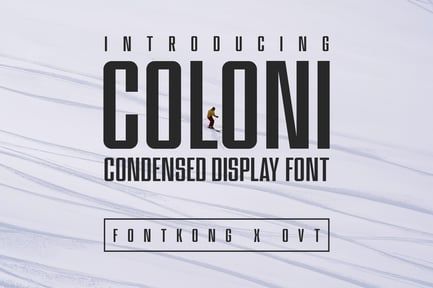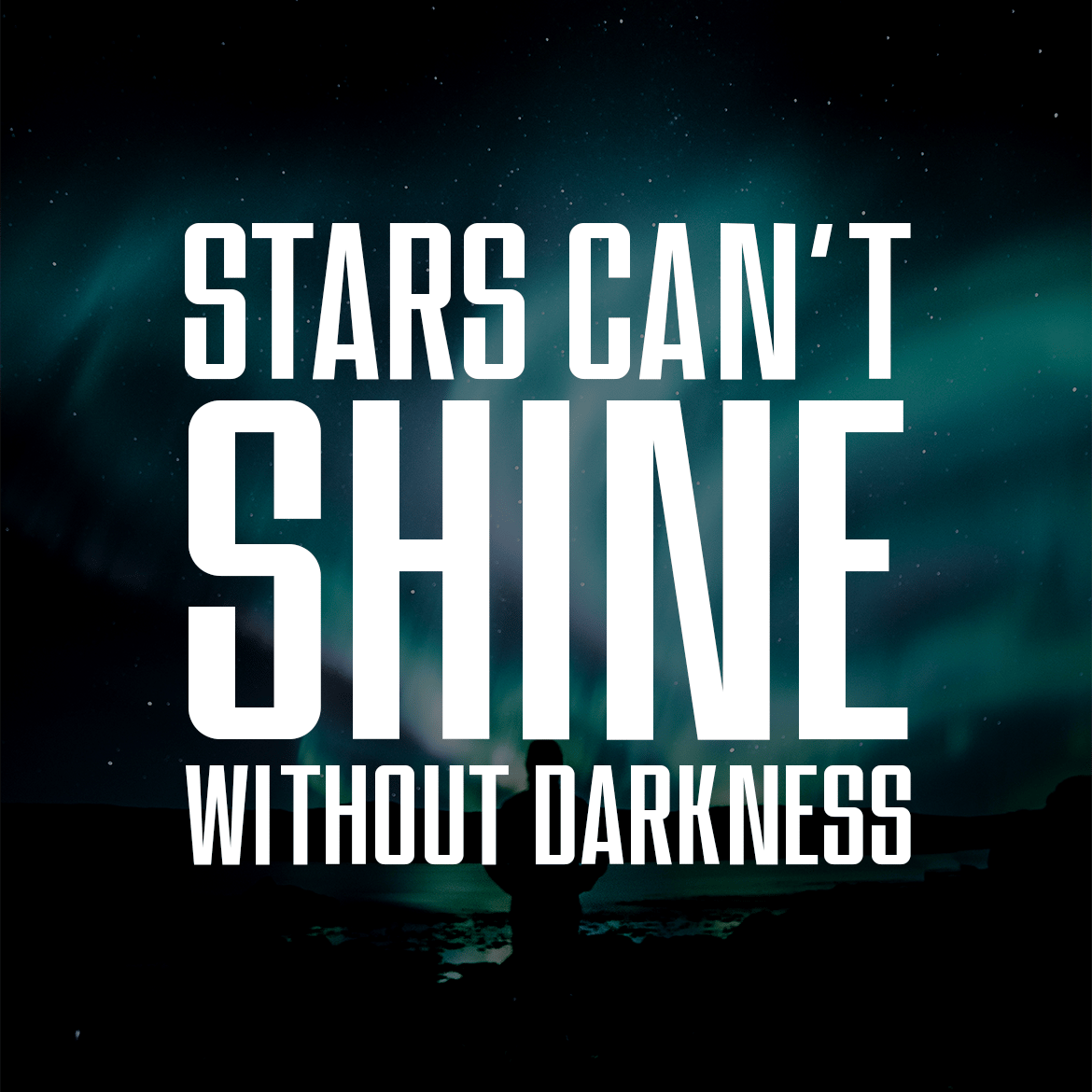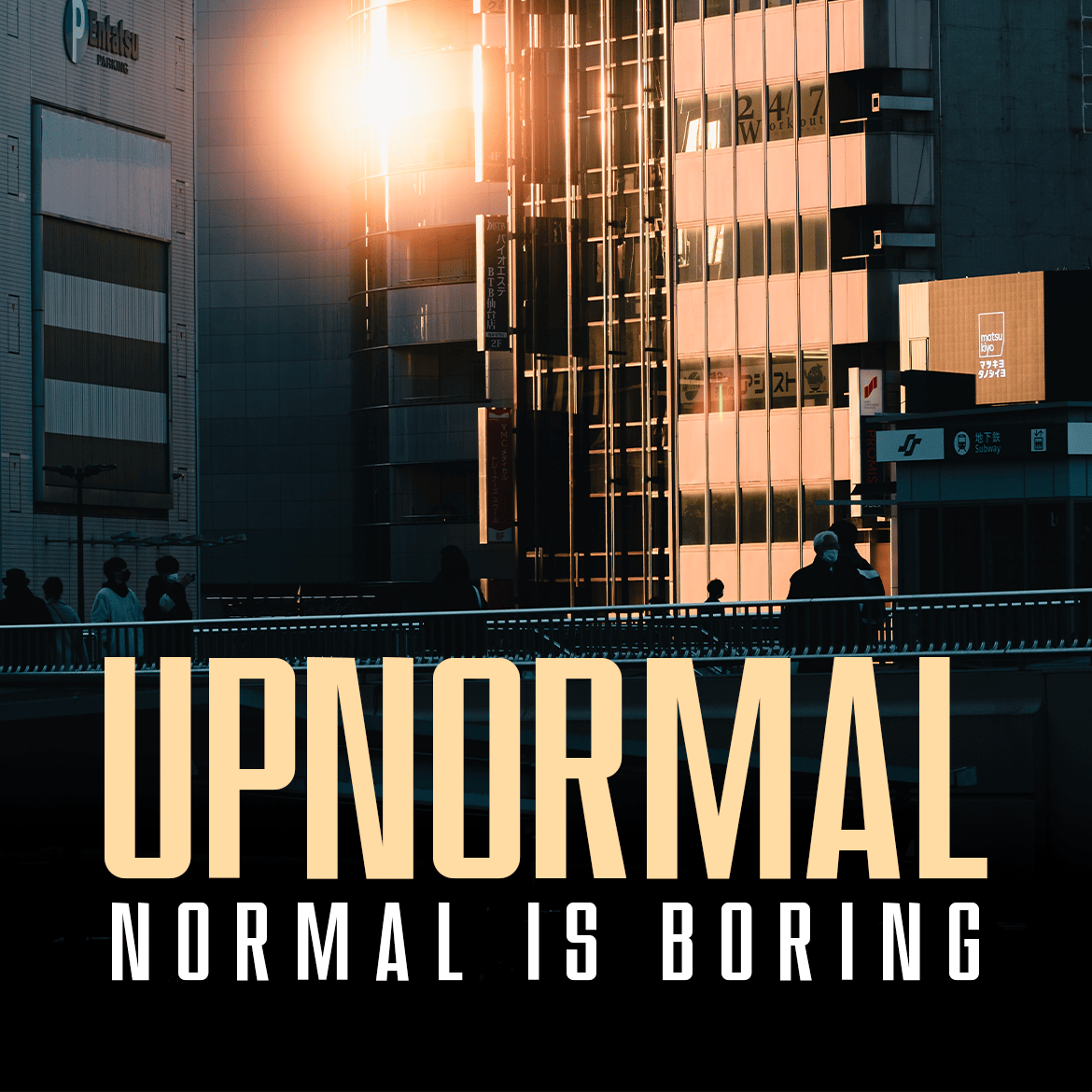
Coloni – Condensed Display Font
The “Coloni” font includes a full set of uppercase and lowercase letters, numbers, and punctuation marks, offering versatility and flexibility for various design applications. Whether you’re crafting striking advertisements or cohesive brand identities, Coloni enhances your work with its refined and space-efficient typography.